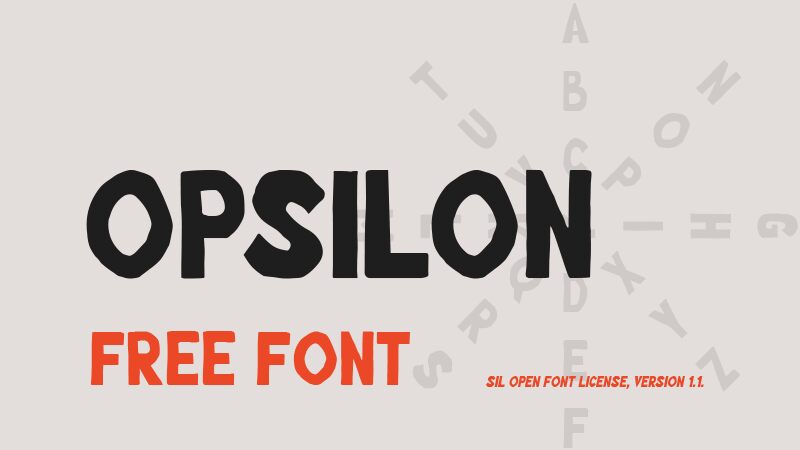
Opsilon
Opsilon font is a bold cartoon display font by GGBotNet with rough textures and geometric forms. It transports a captivating vibe of the old days with its artistic retro influence, imperfect shapes, and thick wide spans. The letters are oversized in height, medium in width, and connected which makes them pleasant to look at in both headings or body texts.